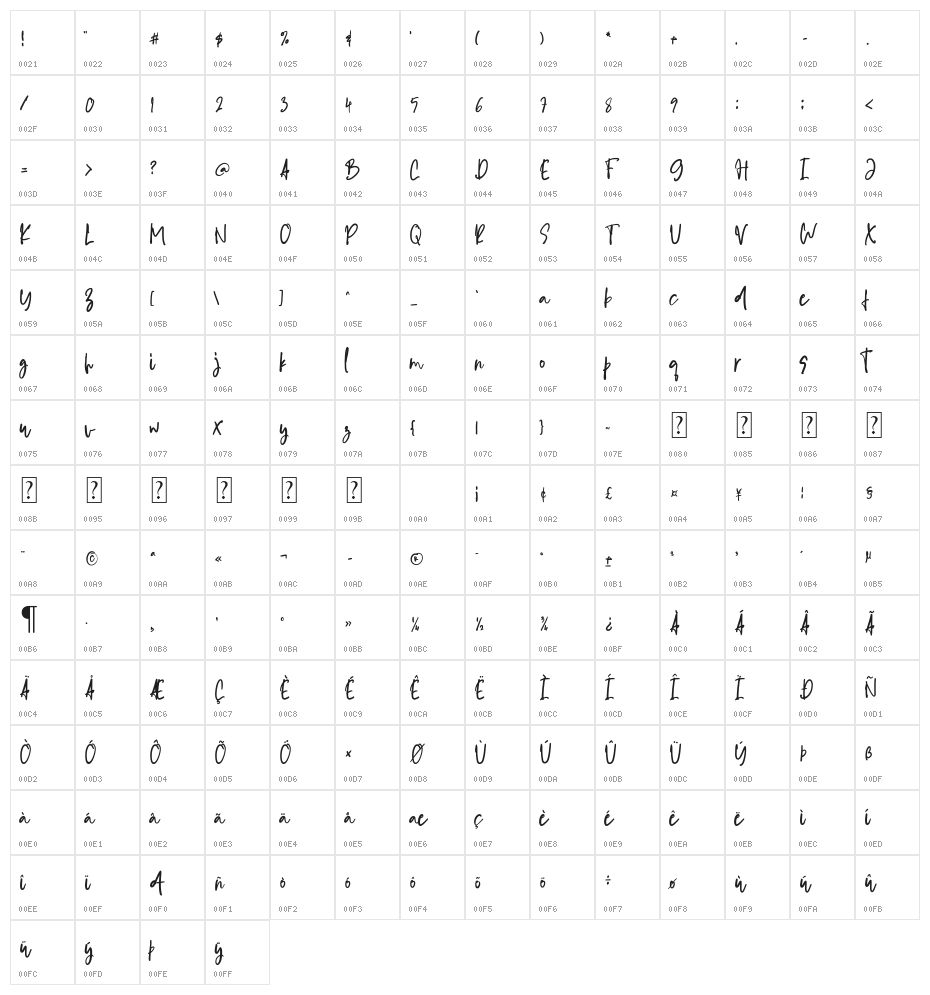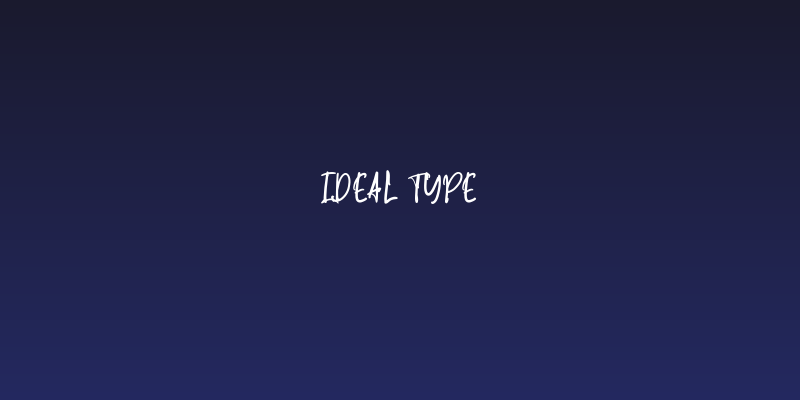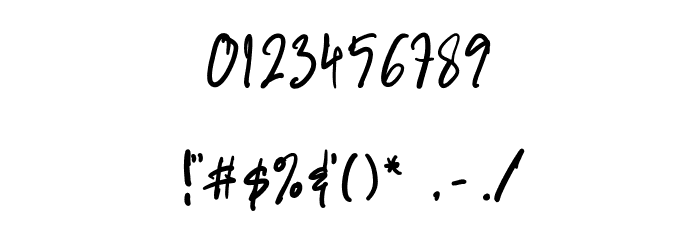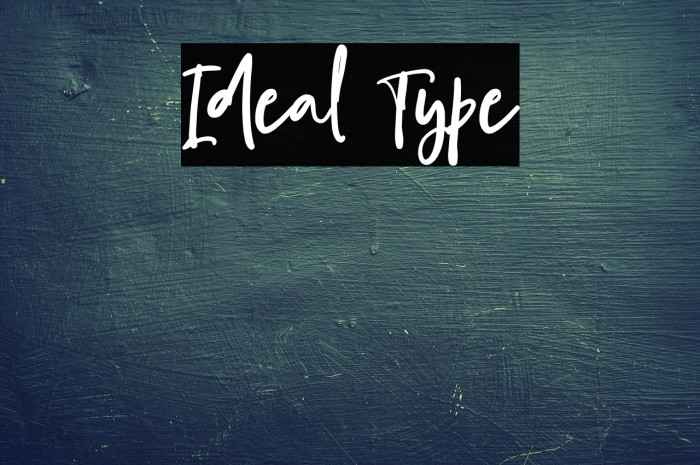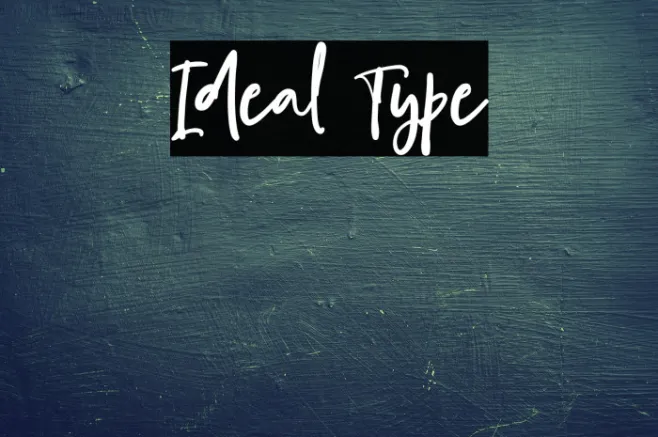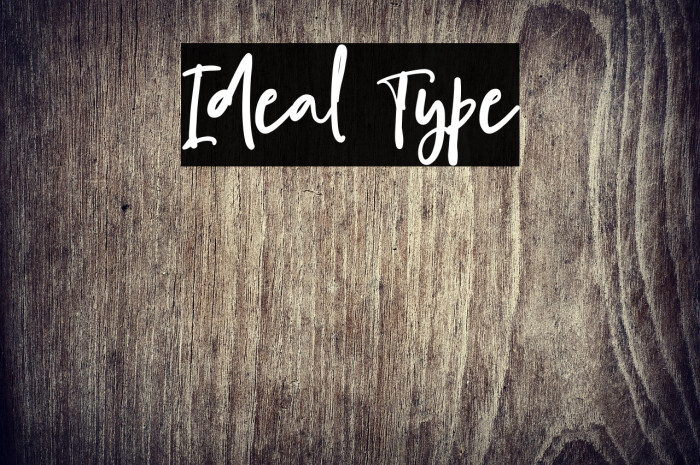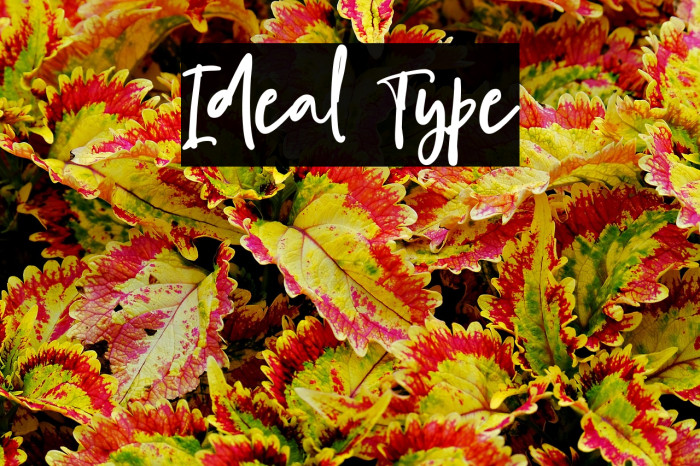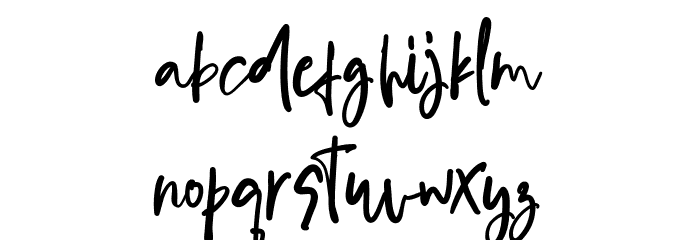
Ideal Type Font
Ideal Type Description
This font exudes a lively and expressive handwritten style, characterized by its fluid and dynamic strokes. The letters are crafted with a natural flow, giving an impression of spontaneity and creativity. The uppercase letters are bold and prominent, while the lowercase letters maintain a consistent rhythm, enhancing readability. The numerals and special characters are designed to complement the overall style, ensuring a cohesive appearance. This font is perfect for projects that require a personal touch, such as invitations, greeting cards, or branding materials that aim to convey warmth and approachability.